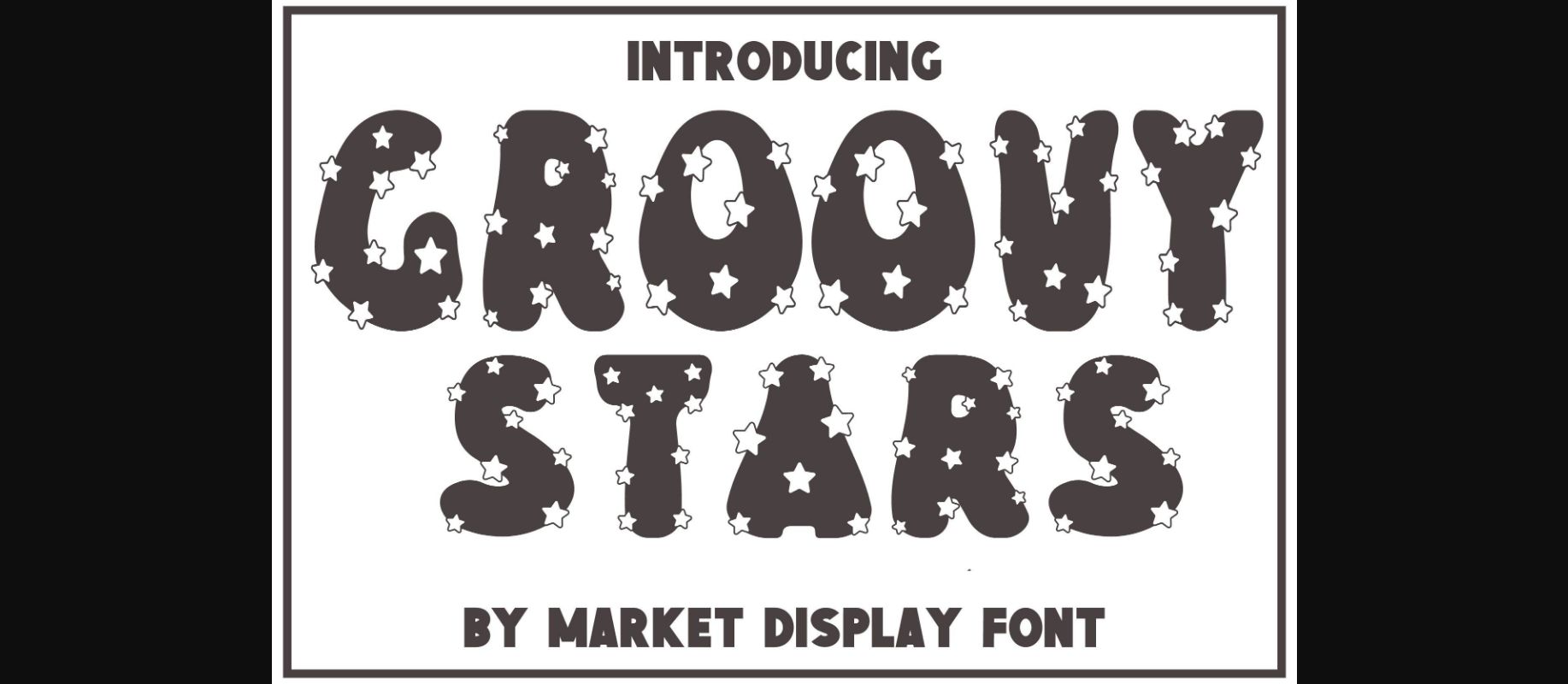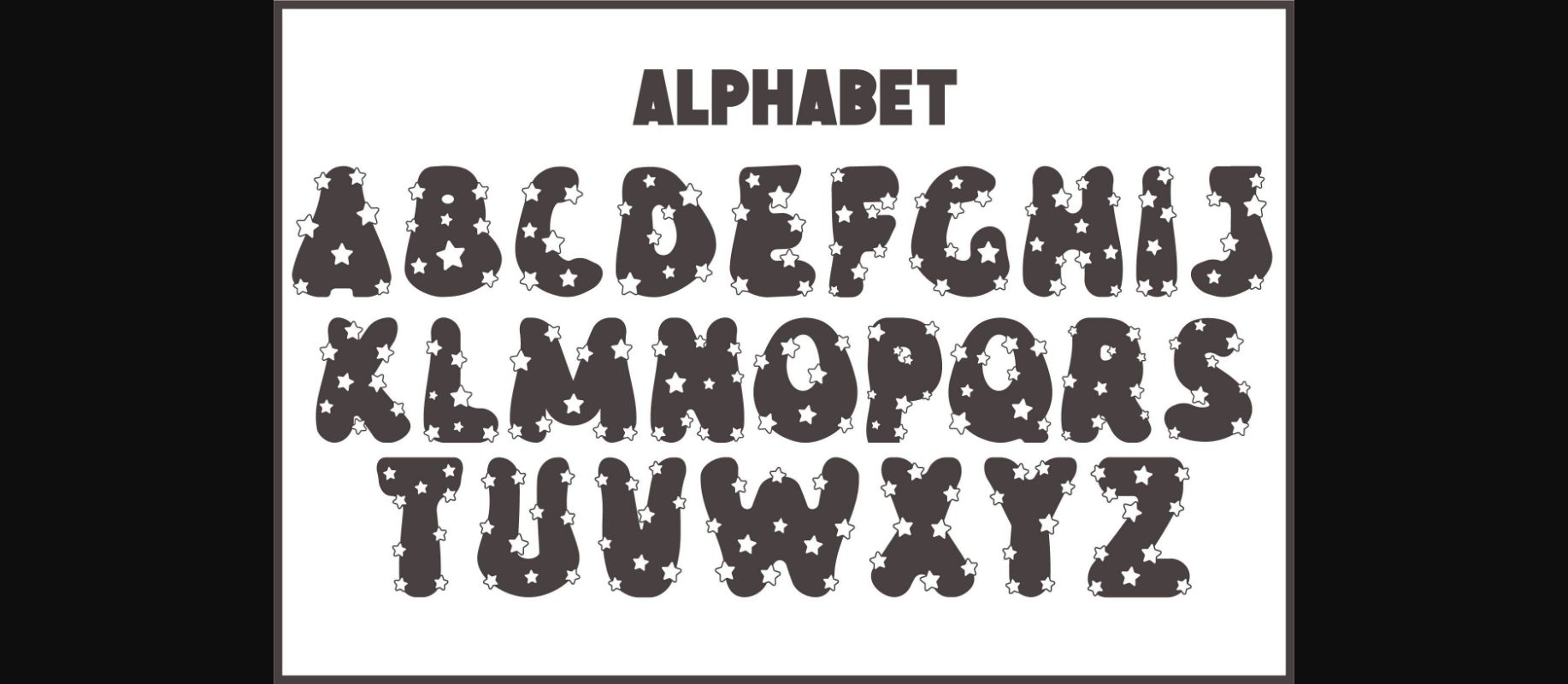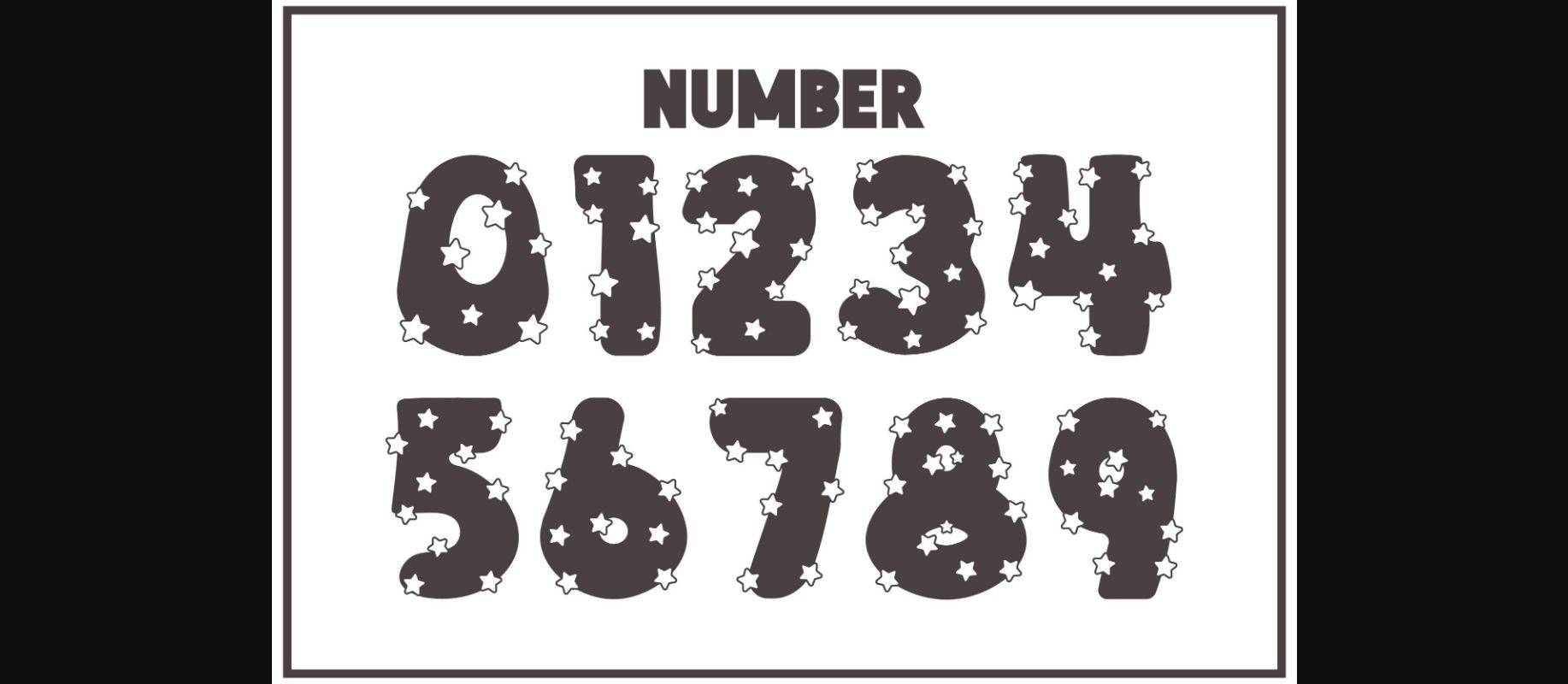
Groovy Stars Font
About Groovy Stars Font
Groovy Stars is a lovely decorative font. This font is the perfect fit for all of your logos, branding, social media, crafty DIY projects, and much more!